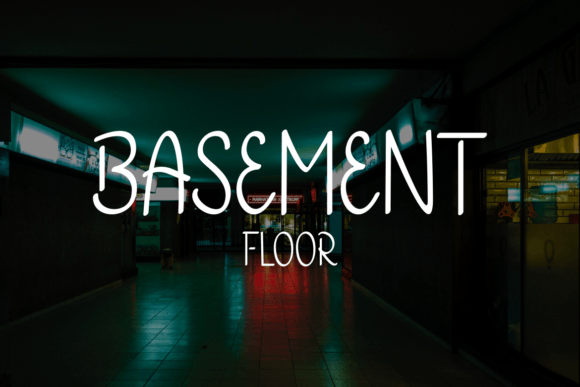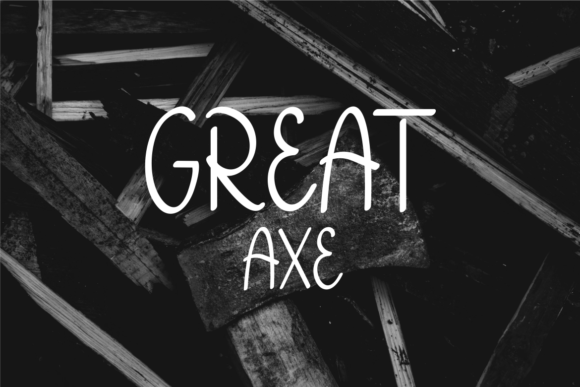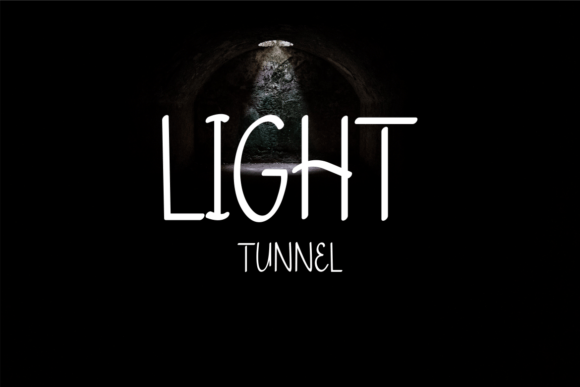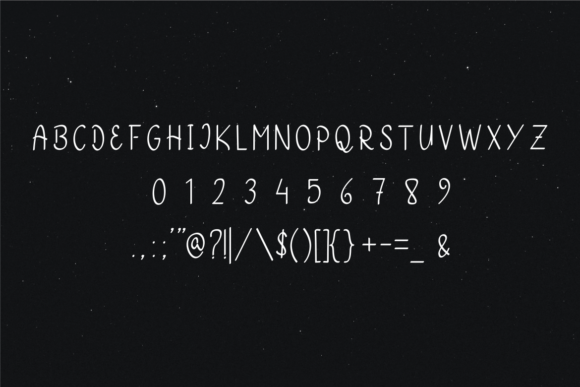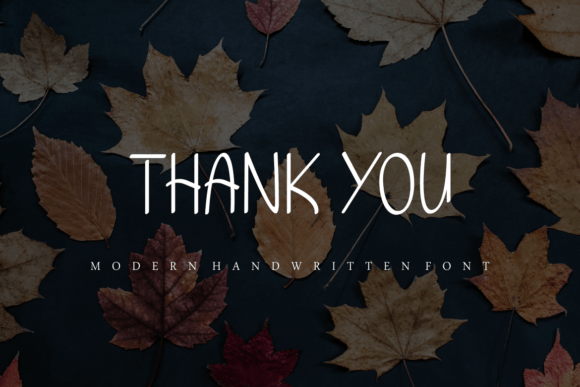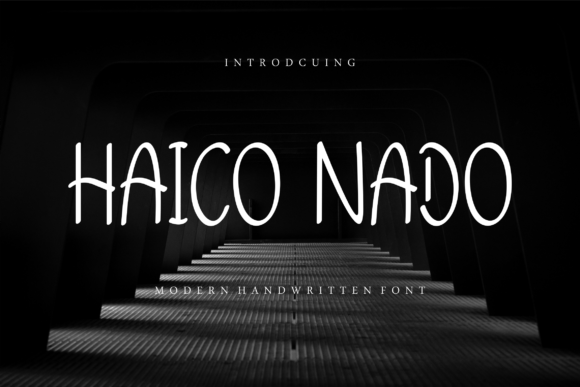
Introducing Haico Nado Font: The Ultimate Handwritten Font for Designers and Crafters
In the world of typography, a good font can make all the difference in creating a lasting impression. For designers and crafters looking for a unique and authentic handwritten font, Haico Nado is an excellent choice. This versatile font is suitable for a wide range of branding projects, including logos, t-shirt printing, esports, and many more. In this article, we’ll explore the features and benefits of Haico Nado Font and why it’s a must-have for any designer or crafter.
What is Haico Nado Font?
Haico Nado Font is an authentic handwritten font that exudes a personal touch. Its unique and organic feel makes it perfect for designers and crafters who want to add a human element to their designs. The font is carefully crafted to ensure that it looks outstanding in a wide range of contexts, from digital platforms to print materials.
Key Features of Haico Nado Font
- Authentic Handwritten Style: Haico Nado Font boasts an authentic handwritten style that is both unique and captivating.
- Versatility: The font is suitable for a wide range of branding projects, including logos, t-shirt printing, esports, and many more.
- High-Quality Design: The font is carefully designed to ensure that it looks outstanding in various contexts, from digital platforms to print materials.
Benefits of Using Haico Nado Font
Using Haico Nado Font offers numerous benefits for designers and crafters. Some of the advantages of using this font include:
- Unique Designs: Haico Nado Font allows designers and crafters to create unique and captivating designs that stand out from the crowd.
- Professional Look: Haico Nado Font gives designs a professional look that is sure to impress clients and audiences.
Use Cases for Haico Nado Font
Haico Nado Font is a versatile font that can be used in various contexts. Some of the popular use cases for this font include:
- Logo Design: The font is perfect for creating unique and captivating logos that represent a brand’s identity.
- T-Shirt Printing: Haico Nado Font is suitable for t-shirt printing and can be used to create eye-catching designs.
- Esports: The font can be used in esports branding, including team logos, jerseys, and marketing materials.
- Digital Platforms: Haico Nado Font can be used in digital platforms, including social media graphics, website headers, and more.
In conclusion, Haico Nado Font is an excellent choice for designers and crafters looking for a unique and authentic handwritten font. Its versatility, high-quality design, and ease of use make it a must-have for any designer or crafter. Whether you’re creating logos, t-shirt designs, or esports branding, Haico Nado Font is sure to deliver outstanding results.